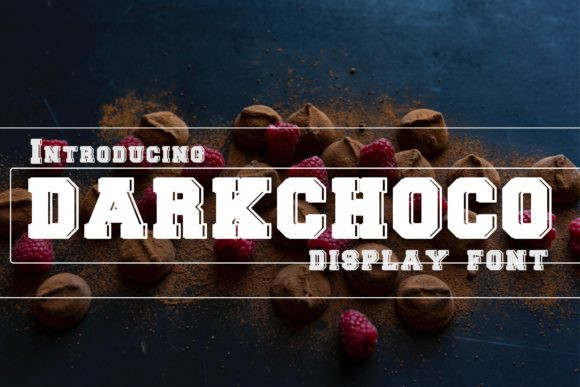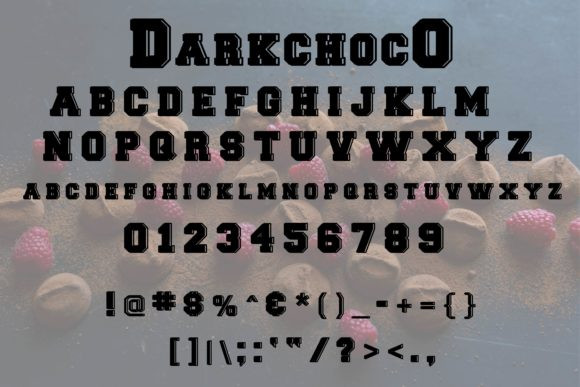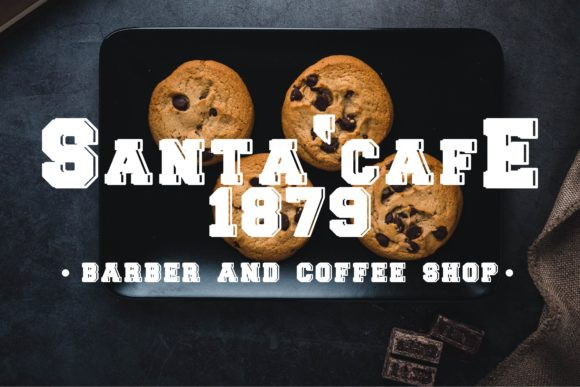
Darkchoco Font
Darkchoco is a great display font. Its casual charm makes it appear wonderfully down-to-earth, readable and, ultimately, incredibly versatile. Darkchoco will look outstanding in any context, whether it’s being used on busy backgrounds or as a standalone headline!